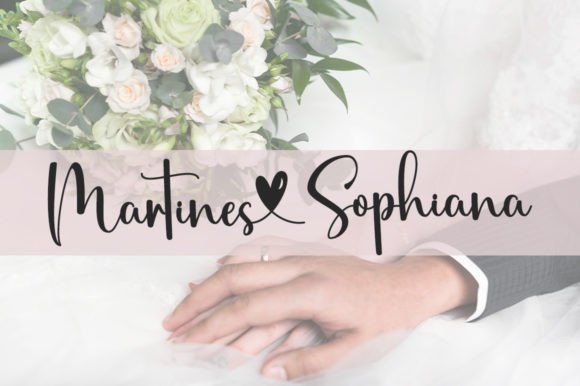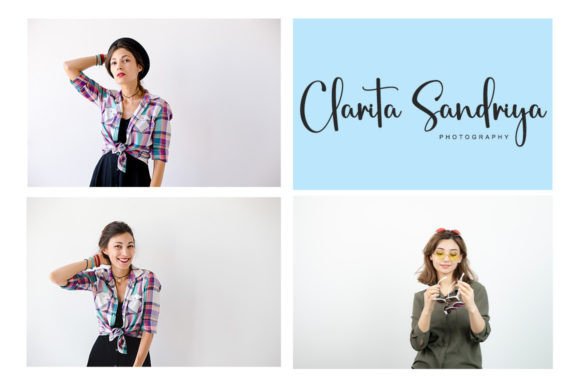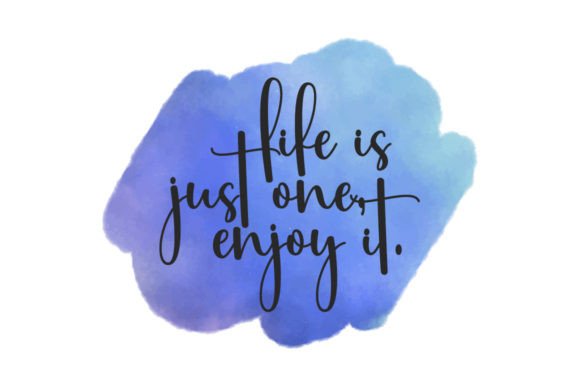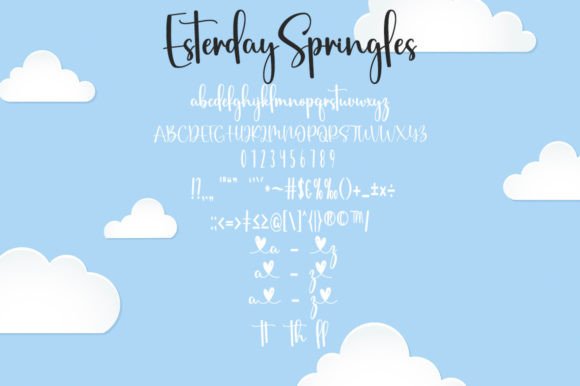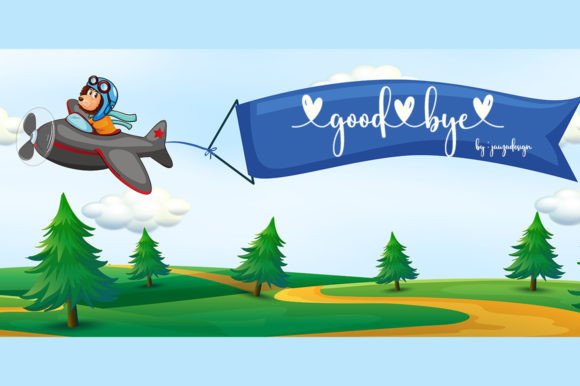
Esterday Springles Font: The Sweet and Friendly Handwritten Font for Your Creative Projects
Are you looking for a font that can add a touch of sweetness and friendliness to your designs? Look no further than Esterday Springles, a beautiful handwritten font that is perfect for a wide range of creative projects. With its natural and unique style, Esterday Springles is incredibly versatile and can be used to create stunning designs that capture the attention of your audience.
What Makes Esterday Springles So Special?
Esterday Springles is a one-of-a-kind font that boasts a natural and unique style that sets it apart from other fonts. Its sweet and friendly tone makes it perfect for designs that require a personal touch, such as wedding cards, quotes, and creative branding. The font’s handcrafted look and feel give it a distinctive charm that will make your designs stand out from the crowd.
Endless Design Possibilities with Esterday Springles
The possibilities are endless when it comes to using Esterday Springles in your designs. Here are just a few ideas to get you started:
- Style Quotes: Use Esterday Springles to create inspiring and motivational quotes that will resonate with your audience.
- Wedding Cards: Add a touch of romance and elegance to your wedding cards and stationery with this beautiful font.
- Magazines: Use Esterday Springles to create eye-catching headlines and titles for your magazine articles.
- Fashion: Create stunning fashion designs, such as clothing labels, packaging, and advertisements, with Esterday Springles.
- Creative Branding: Develop a unique brand identity with Esterday Springles, perfect for businesses that want to stand out from the competition.
- Album Covers: Create captivating album covers that showcase your music style with Esterday Springles.
- Book Covers: Use Esterday Springles to create eye-catching book covers that will grab the attention of readers.
- Movie Titles: Create stunning movie titles and posters with Esterday Springles.
Esterday Springles: PUA Encoded for Easy Use
Esterday Springles is PUA (Private Use Area) encoded, which means that you can access all the glyphs and ligatures with ease. This feature makes it simple to use the font in your designs, even if you’re not a professional designer. With Esterday Springles, you can easily access a wide range of characters, including:
- Alternates
- Ligatures
- Swashes
- Ornaments
Why Choose Esterday Springles?
So, why should you choose Esterday Springles for your creative projects? Here are just a few reasons:
- Unique Style: Esterday Springles boasts a unique and natural style that will set your designs apart from the crowd.
- Versatility: This font is incredibly versatile and can be used for a wide range of creative projects.
- Easy to Use: Esterday Springles is PUA encoded, making it easy to access all the glyphs and ligatures.
- Sweet and Friendly Tone: This font has a sweet and friendly tone that is perfect for designs that require a personal touch.
Esterday Springles is a beautiful handwritten font that is perfect for designers and crafters who want to add a touch of sweetness and friendliness to their designs. With its natural and unique style, Esterday Springles is incredibly versatile and can be used for a wide range of creative projects. Whether you’re creating style quotes, wedding cards, magazines, or creative branding, Esterday Springles is the perfect choice. So why wait? Download Esterday Springles today and start creating stunning designs that capture the attention of your audience!